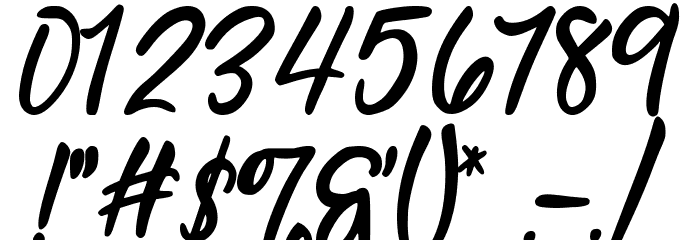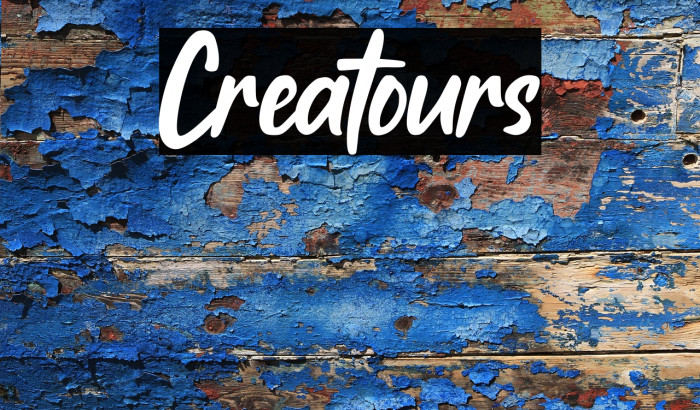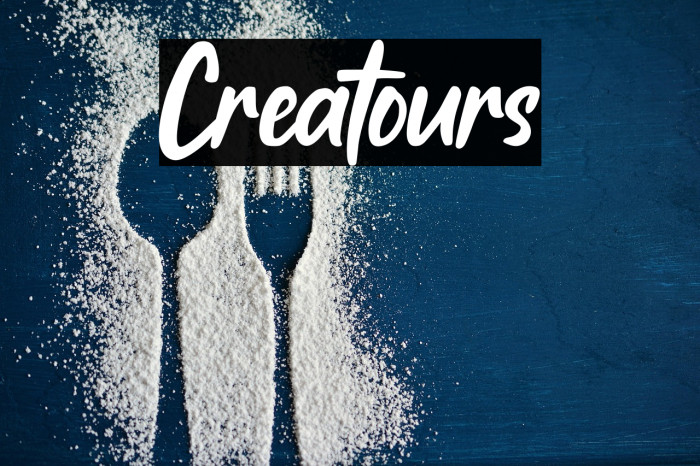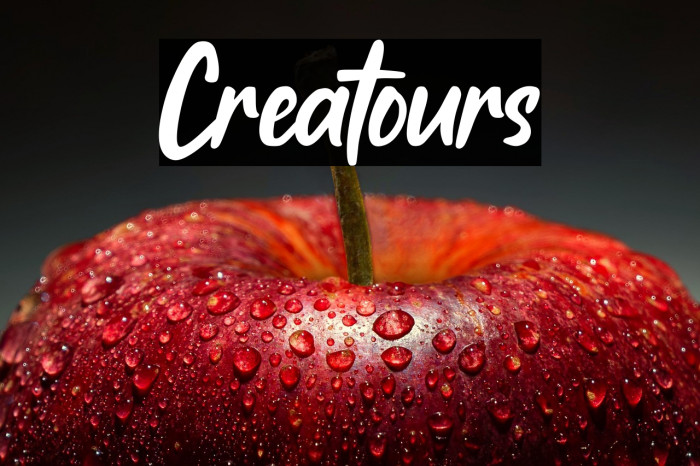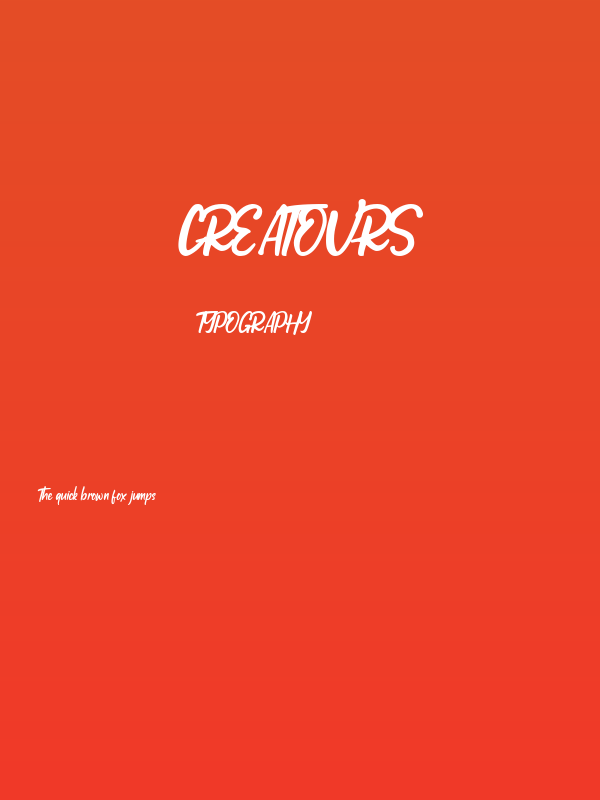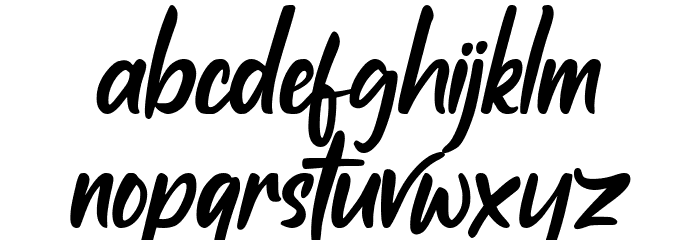
Creatours Font
Creatours Description
This font features a bold and expressive handwritten style, characterized by its fluid and dynamic strokes. The letters are slightly slanted, giving a sense of motion and energy. The uppercase letters are prominent and well-defined, while the lowercase letters maintain a consistent flow, enhancing readability. The numbers and special characters are crafted with the same attention to detail, ensuring a cohesive appearance across all elements. The overall design is modern and artistic, making it suitable for creative projects.